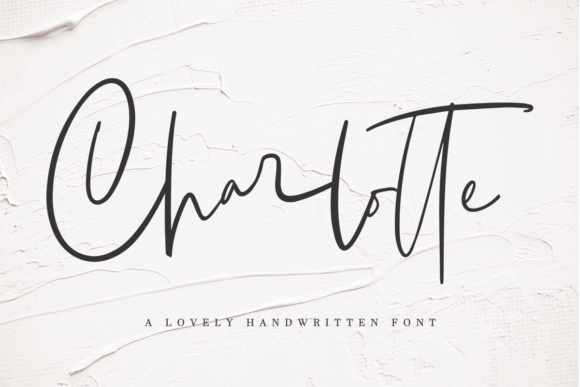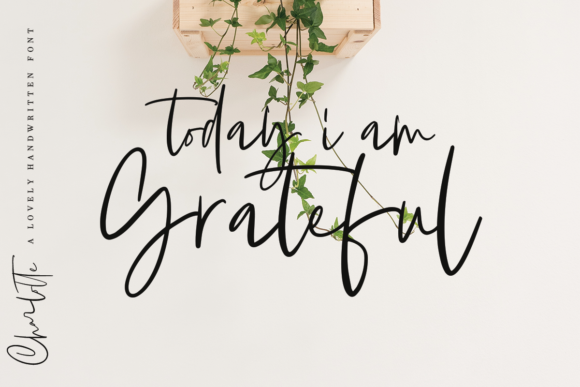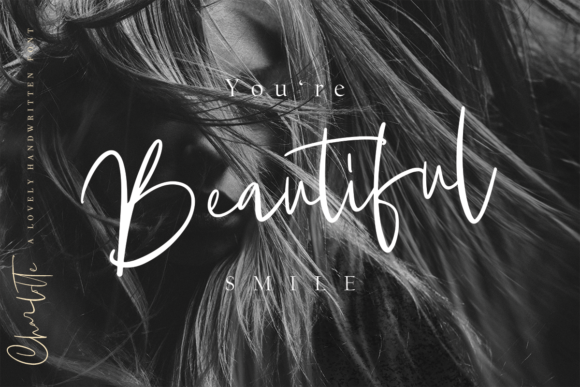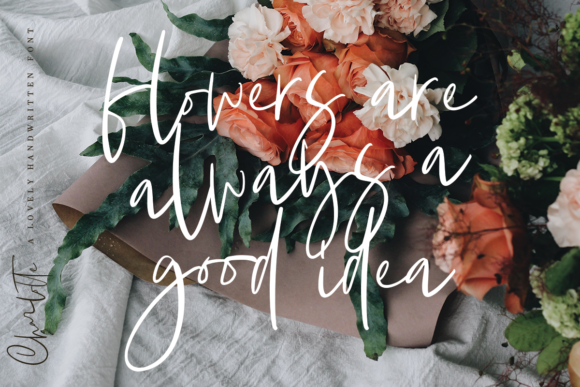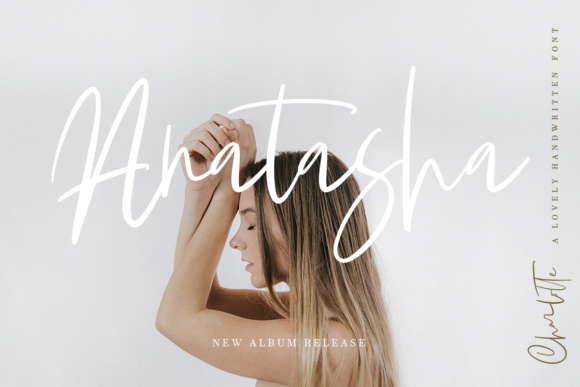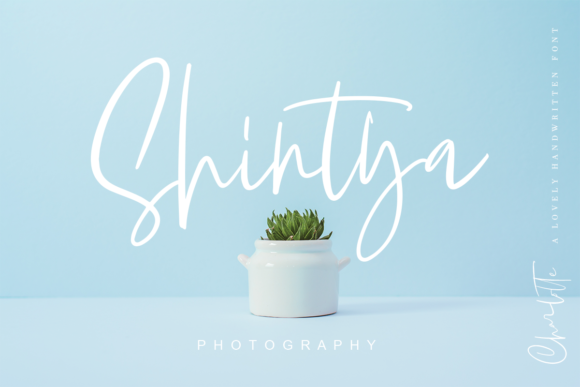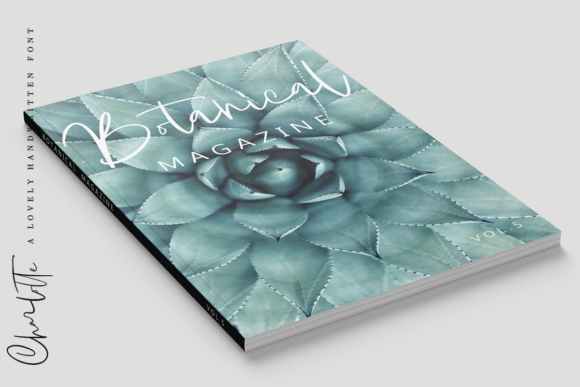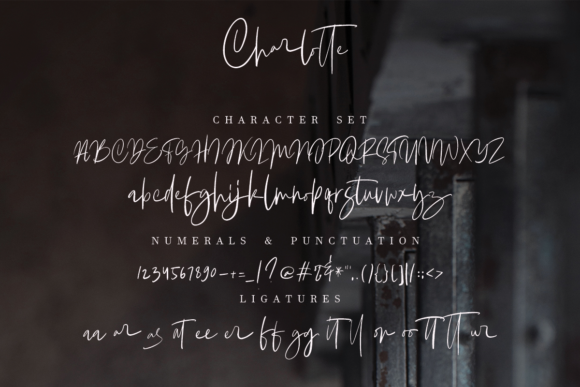
Charlotte Font
About Charlotte Font
The Charlotte is a beautiful handwritten font with a feminine style. It can be used for logos, posters, titles, clothing, branding, invitations, and much more! The flowing character is ideal for creating interesting messages!